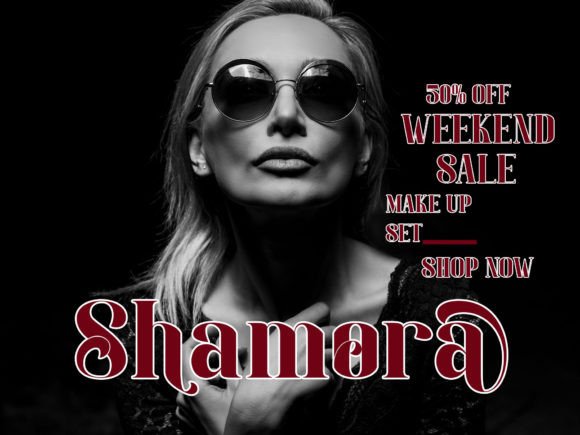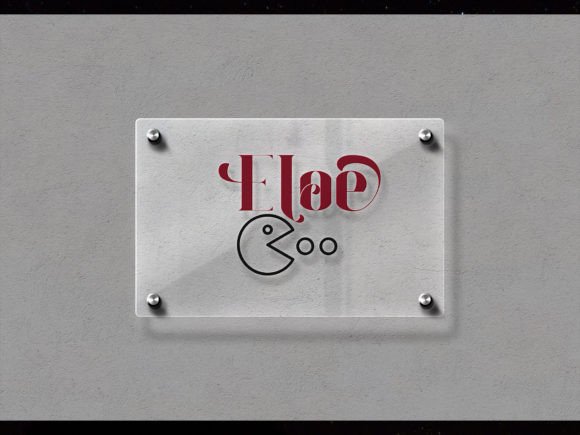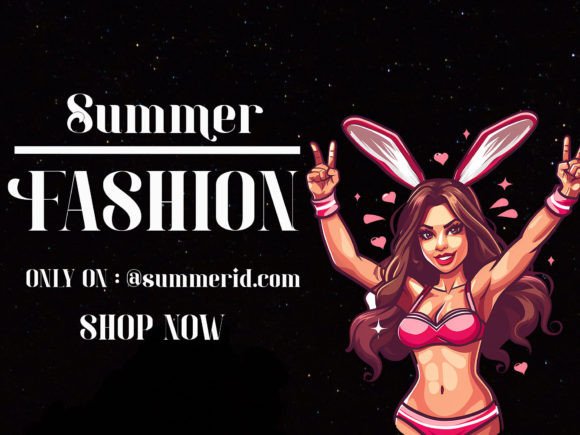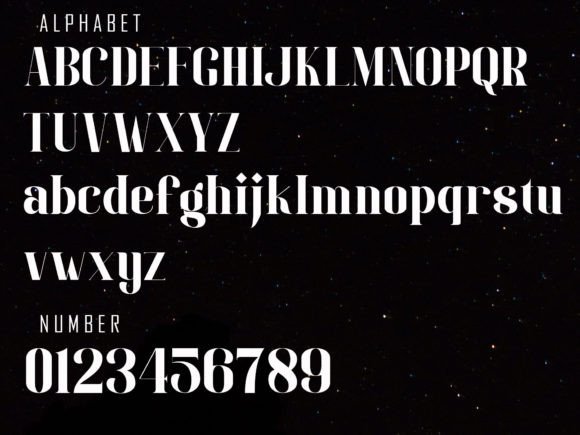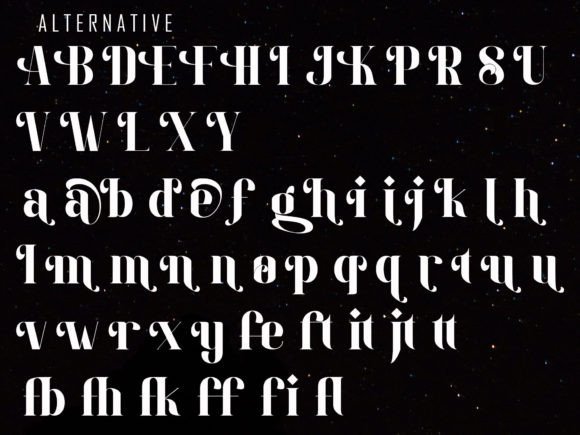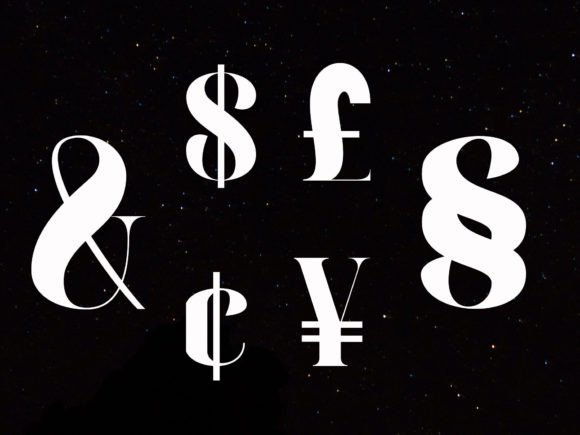
Introducing Asgrath Font: Elevate Your Designs with Elegance and Modernity
In the world of typography, fonts play a crucial role in conveying messages, expressing creativity, and establishing brand identities. For designers, crafters, and creative enthusiasts, finding the perfect font can be a daunting task. However, if you’re looking for a simple yet elegant serif font that embodies modern style, look no further than Asgrath Font. In this article, we’ll explore the features, versatility, and uses of Asgrath Font, and why it’s becoming a favorite among designers and crafters.
What is Asgrath Font?
Asgrath Font is a beautifully crafted serif font that exudes elegance and sophistication. Its simple design makes it highly versatile, allowing it to be used in a wide range of applications. Whether you’re working on branding, logos, wedding designs, social media posts, advertising, product packaging, product design, labels, photography, watermarks, invitations, stationery, or any other project, Asgrath Font is an excellent choice.
Key Features of Asgrath Font
- Simple and Elegant Design: Asgrath Font boasts a clean and refined design that adds a touch of sophistication to any project.
- Serif Style: The font features classic serifs that provide a sense of tradition and timelessness, while still feeling modern and fresh.
- Modern Style: Asgrath Font’s modern style makes it perfect for designers and crafters who want to create contemporary and stylish designs.
- High Versatility: The font’s simplicity and elegance make it suitable for a wide range of applications, from print to digital media.
Uses of Asgrath Font
Asgrath Font’s versatility is one of its standout features. Here are some of the many ways you can use this beautiful font:
- Branding: Establish a strong brand identity with Asgrath Font’s elegant and modern design.
- Logos: Create stunning logos that make a lasting impression with Asgrath Font’s simple yet sophisticated design.
- Wedding Designs: Add a touch of elegance to your wedding designs, including invitations, stationery, and decorations.
- Social Media Posts: Elevate your social media presence with Asgrath Font’s modern and stylish design.
- Advertising: Create eye-catching ads that grab attention with Asgrath Font’s clean and refined design.
- Product Packaging: Make your products stand out with Asgrath Font’s elegant and sophisticated design.
- Product Design: Add a touch of modern style to your product designs with Asgrath Font’s simple yet elegant design.
- Labels: Create beautiful labels that showcase your brand’s personality with Asgrath Font.
- Photography: Add a touch of elegance to your photography with Asgrath Font’s beautiful design.
- Watermarks: Protect your images with stylish watermarks created with Asgrath Font.
- Invitations: Create stunning invitations that set the tone for any event with Asgrath Font.
- Stationery: Elevate your stationery with Asgrath Font’s elegant and modern design.
Why Choose Asgrath Font?
With so many fonts available, why choose Asgrath Font? Here are a few reasons why designers and crafters are falling in love with this beautiful font:
- Unique Design: Asgrath Font’s simple yet elegant design sets it apart from other fonts.
- High Versatility: The font’s versatility makes it suitable for a wide range of applications.
- Easy to Read: Asgrath Font’s clean design makes it easy to read, even at small sizes.
- Modern Style: The font’s modern style makes it perfect for designers and crafters who want to create contemporary designs.
In conclusion, Asgrath Font is a beautiful serif font that offers elegance, sophistication, and modernity. Its simple design makes it highly versatile, allowing it to be used in a wide range of applications. Whether you’re a designer, crafter, or creative enthusiast, Asgrath Font is an excellent choice for any project. With its unique design, high versatility, and ease of use, Asgrath Font is sure to become a favorite among designers and crafters.